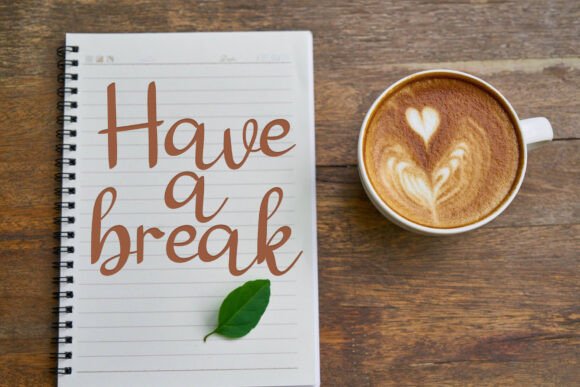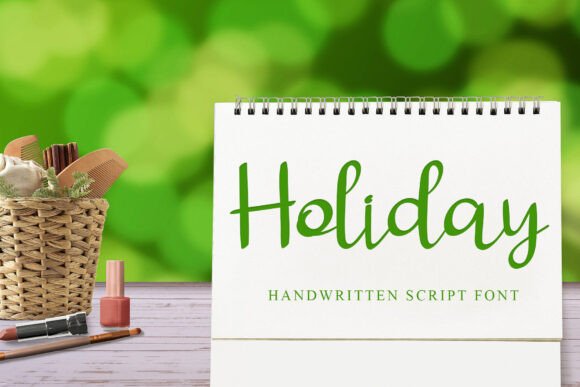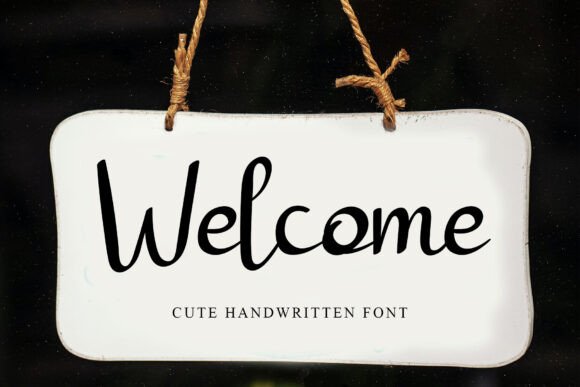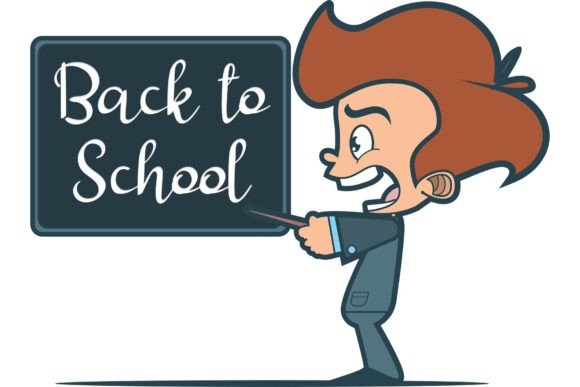
Unleashing the Art of Elegant Typography: The Calligraphy Font
Have you ever found yourself in a creative moment, struggling to convey the perfect sentiment on a special occasion? Perhaps it’s a wedding invitation, a birthday greeting, or a heartfelt thank-you note. As designers, we know the importance of making our message stand out with the right typography. This is where the Calligraphy Font comes in – a unique and elegant font designed to add a personal touch to your projects.
The Calligraphy Font is more than just a font; it’s an art form that requires a professional hand touch to bring it to life. Its versatility makes it perfect for a wide range of applications, from work projects to special occasions like weddings and birthdays. For designers, this font is a valuable asset that can elevate their designs and make them truly unforgettable.
Key Features of Calligraphy Font
- Unique Characteristics: Calligraphy Font features elegant, cursive connections and ornate flourishes, making it ideal for creating sophisticated, high-end designs, such as wedding invitations, luxury branding, and fine art prints.
- Customization Options: Calligraphy Font includes a range of customization options, including ligatures, swashes, and alternate characters, allowing designers to add a personal touch to their designs.
Calligraphy Font Review
Overall, I’m impressed with the “Calligraphy Font” – it’s a beautiful addition to any design project. Here are some things that work well: ✨
- Legibility: The font is highly legible, making it perfect for long blocks of text.
- Expressiveness: The font’s flair and flourishes add a touch of elegance and sophistication to any design.
- Customization: The font comes in a variety of weights and styles, making it easy to find the perfect fit for your project.
- Complexity: The font’s intricate details can make it difficult to use in certain contexts, such as small text sizes or low-resolution displays.
- Readability on certain devices: The font may not display as well on some devices, such as e-readers or older smartphones.
- Compatibility issues: Some older software or operating systems may not support the font’s advanced features.
Overall, I think the “Calligraphy Font” is a great choice for designers who want to add a touch of luxury and sophistication to their projects. While it may have some limitations, its unique features and high level of customization make it a valuable addition to any design toolkit.
Tips for Getting the Most Out of Calligraphy Font
Experiment with different font sizes, colors, and styles to create a unique look. Use calligraphy font to add a touch of elegance to invitations, certificates, and other formal documents. You can also use it to create a whimsical feel in children’s books or party invitations.
Calligraphy font is commonly used for:
- Formal certificates and diplomas
- Children’s books and party invitations
- Wedding and event signage